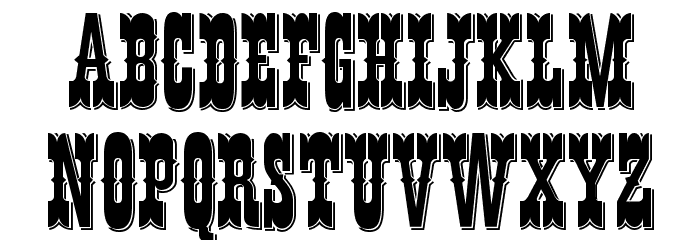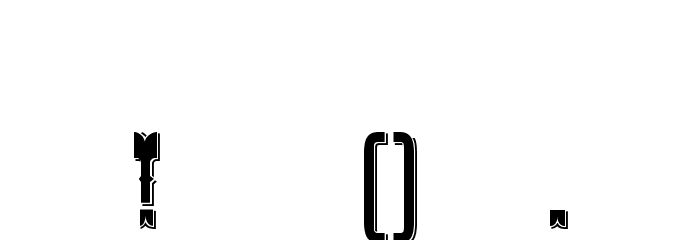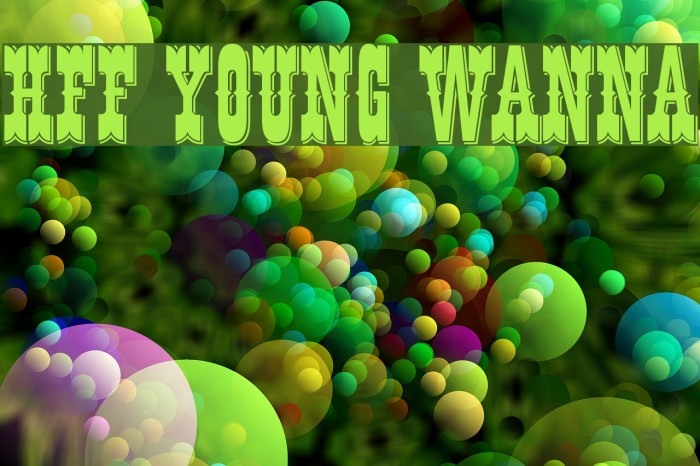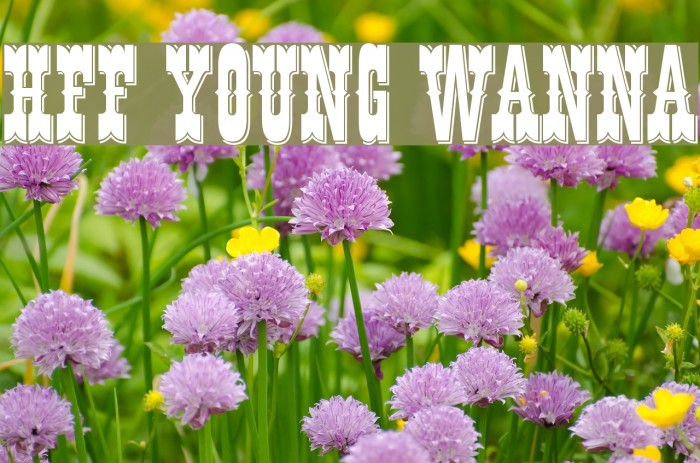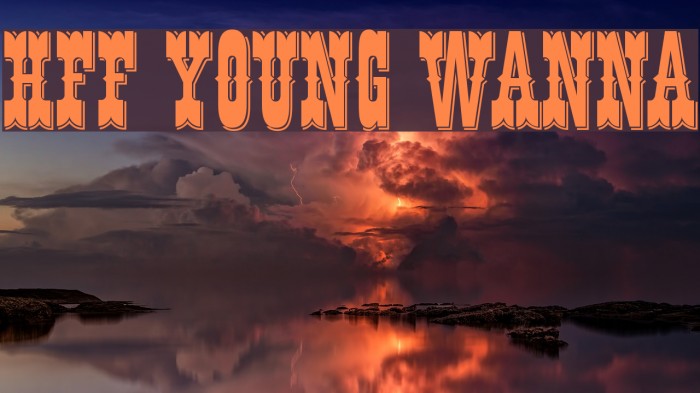
HFF Young Wanna Font
This font features a bold, decorative style with a strong presence. The letters are uppercase only, with a shadow effect that gives a three-dimensional appearance. The design is reminiscent of vintage or retro styles, often seen in old western or circus themes. The characters are tightly spaced, enhancing the boldness and impact of the text. The font's unique style makes it stand out, suitable for eye-catching designs. The thick strokes and shadowing create a high contrast, making it ideal for titles or headlines that need to capture attention.
A bold, decorative font with a vintage, three-dimensional style.
- Proposed Projects: Perfect for posters, signage, branding projects, or any design requiring a vintage or retro theme.
- Character Spacing: Tight
- Overall Style: Vintage